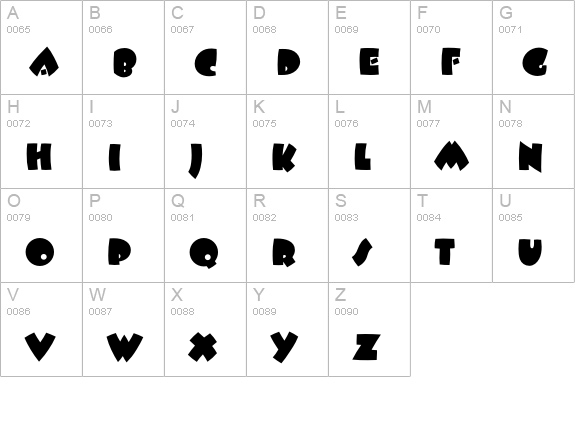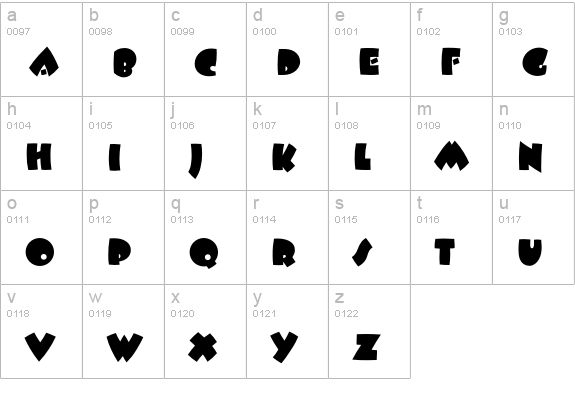
BeeskneesEF Font Details
BeeskneesEF font is a charming and versatile typeface that exudes a sense of whimsy and elegance. Its curvaceous letterforms and playful design make it perfect for a variety of creative projects, from branding to invitations to social media graphics. The unique character of BeeskneesEF font adds a touch of personality and flair to any text it graces. What makes BeeskneesEF font even more appealing is that it is available for free download at FontsMarket.com. This means that you can easily add this delightful font to your collection without any cost. Whether you're a designer looking for a fresh font to incorporate into your work or an enthusiast seeking to enhance your projects with a touch of creativity, BeeskneesEF font is a fantastic choice. Download it today and let your creativity soar with this fabulous font!